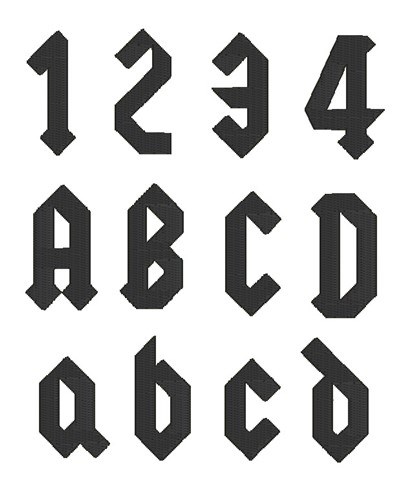
Unicorn Creatives is happy to present Black Widow Font Embrilliance - Decorative Gothic Style Lettering - BX font machine embroidery font which has Bold, angular decorative letterforms reminiscent of gothic designs make this machine embroidery font ideal for dramatic home decor items like wall hangings. Available in BX font and Embrilliance formats. included. If you would like to view more embroidery fonts and alphabets please search our embroidery fonts page.
Black Widow Font Embrilliance - Decorative Gothic Style Lettering - BX font